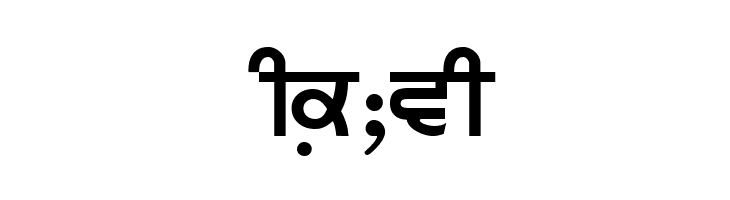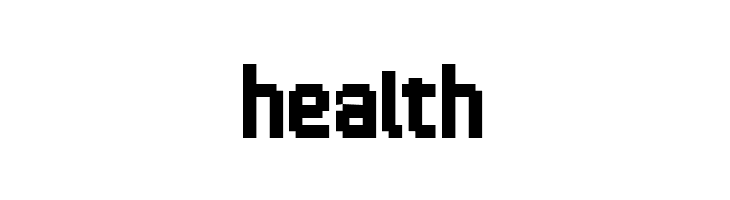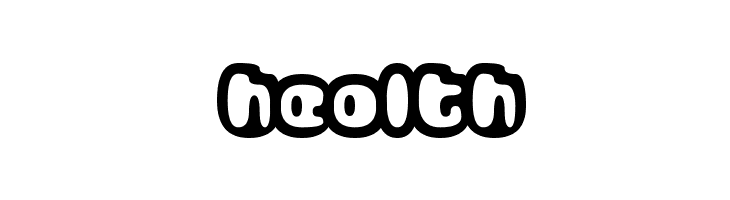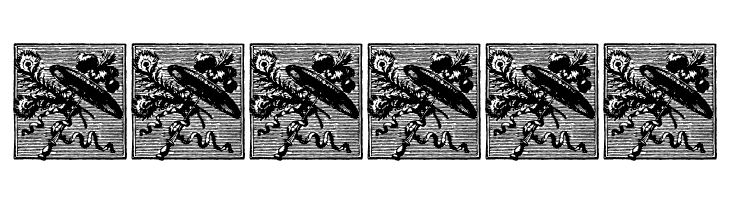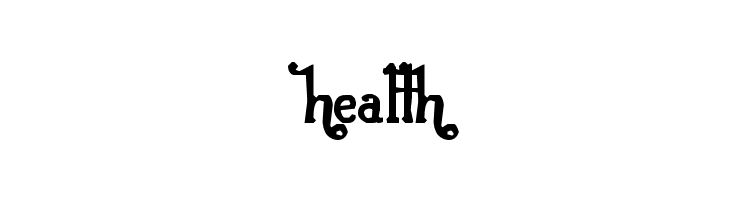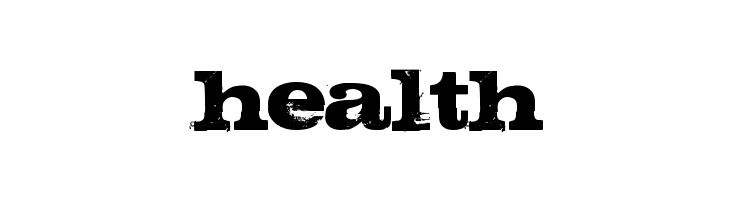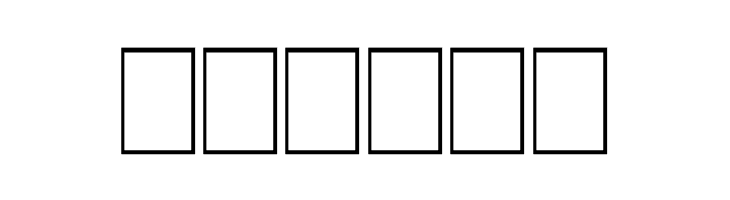
Bold, 3D italic font with a retro, comic book style.
A bold, futuristic font with a 3D effect and geometric shapes.
A bold, modern script font with a dynamic and elegant style.
A bold, outlined font with a vintage sports aesthetic.
A bold, 3D-filled font with a vintage, impactful style.
A modern, elegant script font with flowing, cursive letters and decorative flourishes.
A bold, manga-inspired font with dynamic brush stroke effects.
A bold, comic book style font with dynamic, explosive characters.
A geometric, 7-segment display-inspired font with a technical and futuristic style.
A pixelated, dot-based font with a retro digital aesthetic.
A modern, italicized hollow font with smooth curves and rounded edges.
A bold, geometric sans-serif font with a modern and structured design.
A bold, slab serif font with a vintage Western style.
A vintage, distressed typewriter-style font with a bold, textured appearance.
A bold, slab serif font with a vintage Western style.
An ornate, decorative font with intricate patterns and a vintage style.
The image contains placeholder symbols, not a valid font.
The image shows placeholder symbols instead of a valid font.
The image contains placeholder symbols instead of a valid font.
The image shows placeholder symbols instead of a valid font.
The image contains placeholder symbols, not a valid font.
The image contains placeholder symbols instead of a valid font.
Invalid font display with placeholder symbols.
The image shows placeholder symbols instead of a valid font.
Invalid font displaying placeholder symbols.
The image shows placeholder symbols instead of a valid font.
The image contains placeholder boxes instead of a valid font.
The image shows placeholder symbols instead of a valid font.
A bold, punk-inspired decorative font with boxed, irregular characters.
Bold, italicized collegiate font with a strong, outlined design.
Bold, distressed style mimicking a recording indicator with grunge texture.
A bold, 3D font with a striped, geometric design for a vintage look.
An ornate and decorative font with elaborate swirls, perfect for festive designs.